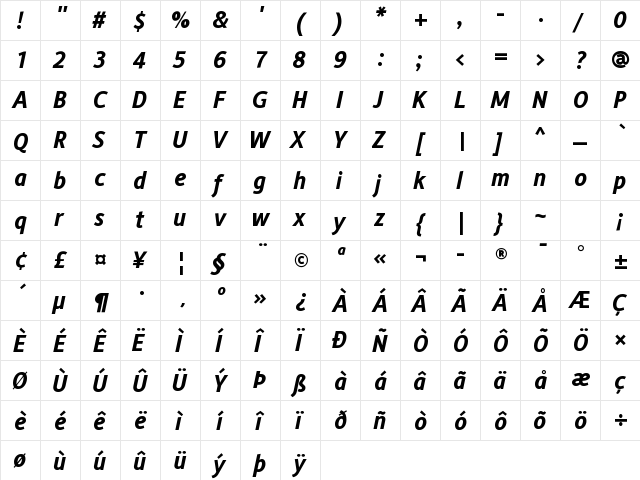
Alber Bold Italic
Design Context for Alber Typeface
Alber is a composed and adaptable typeface that performs quietly and consistently across a wide range of design contexts. Its italic angle brings a sense of urgency and motion to the letterforms. The heavy weight commands attention and anchors typographic hierarchies.
Pro Tip: Use Alber for emphasis, pull quotes, and subheadings where its slanted energy can add rhythm to the layout.